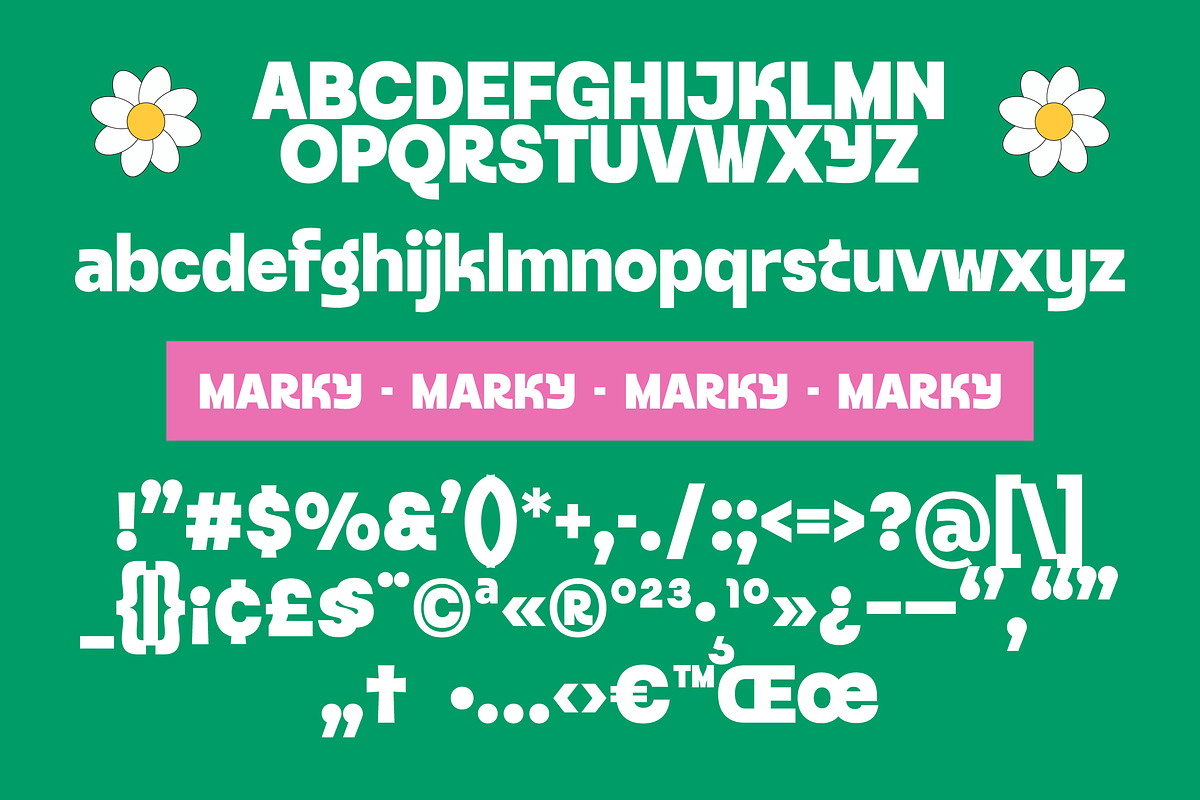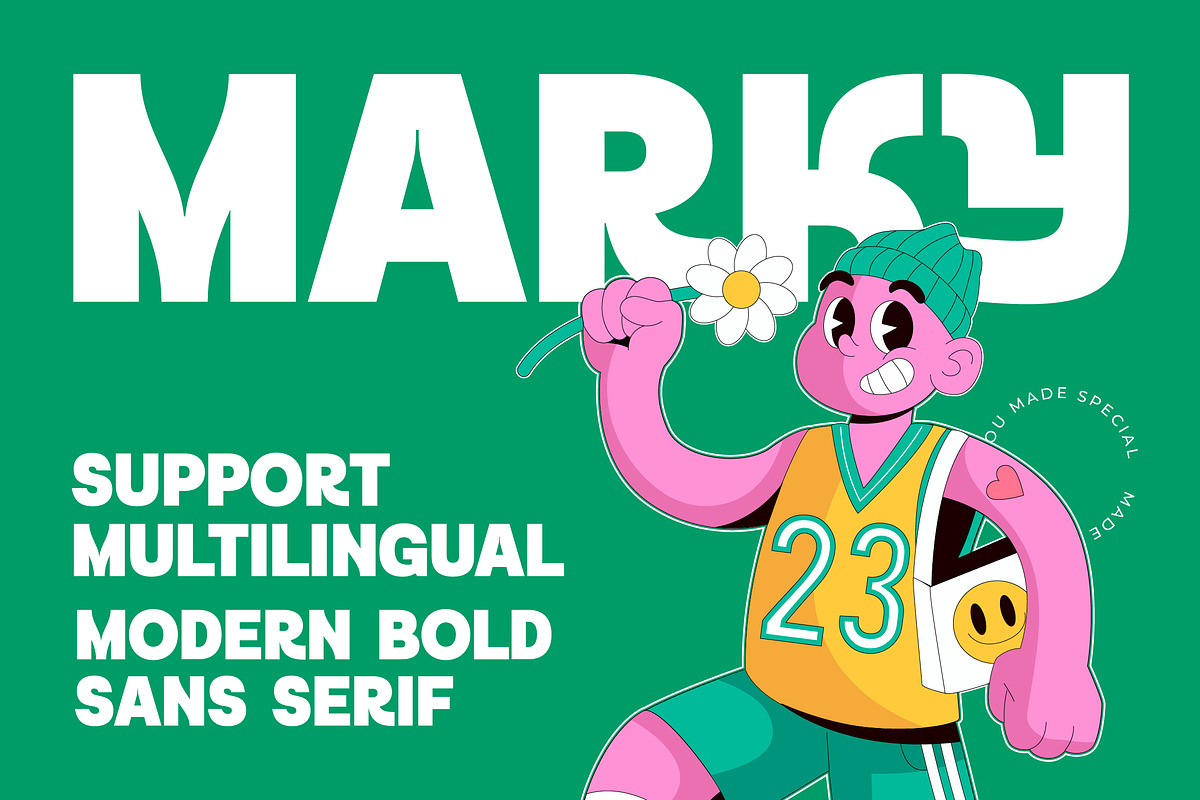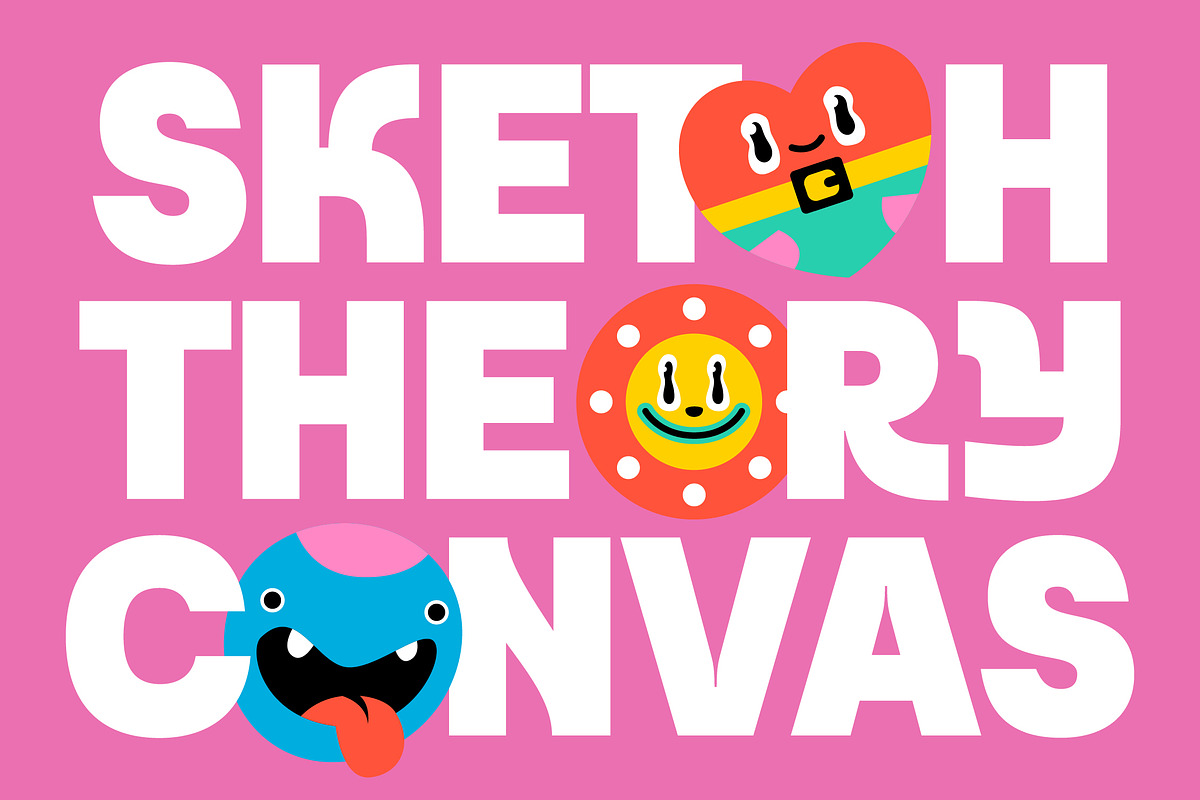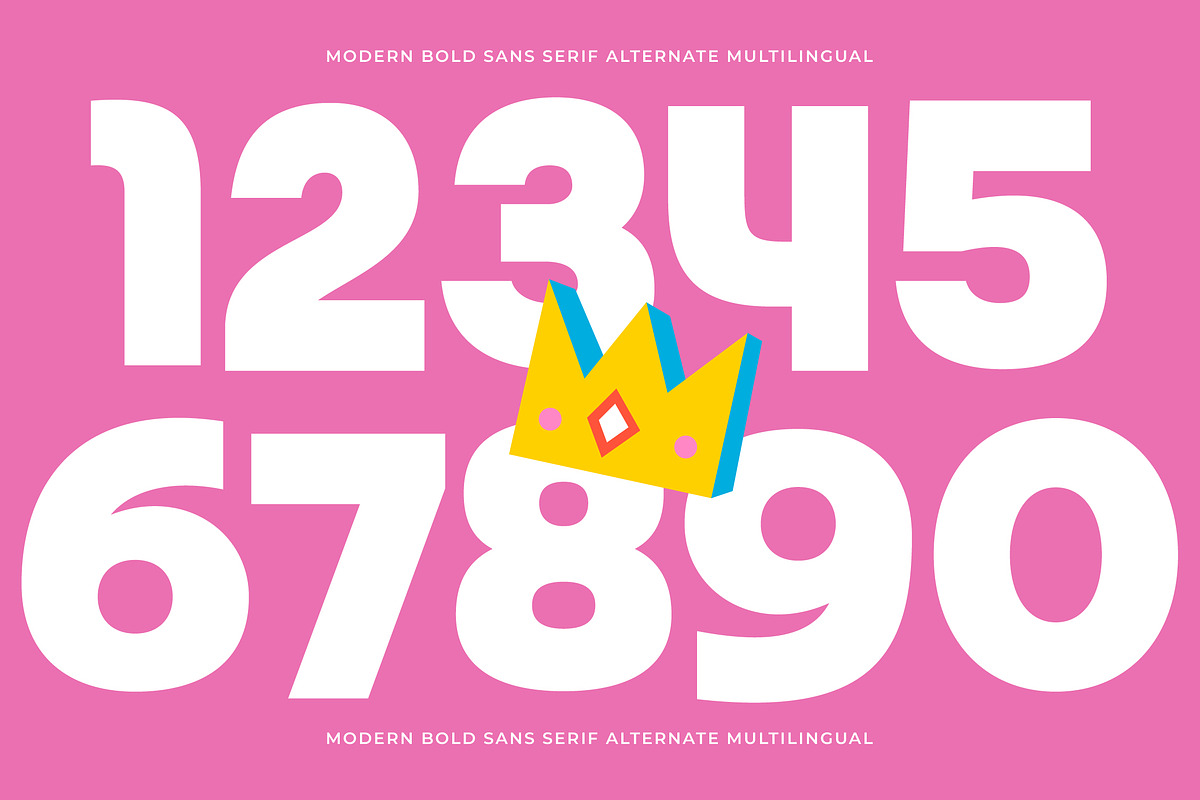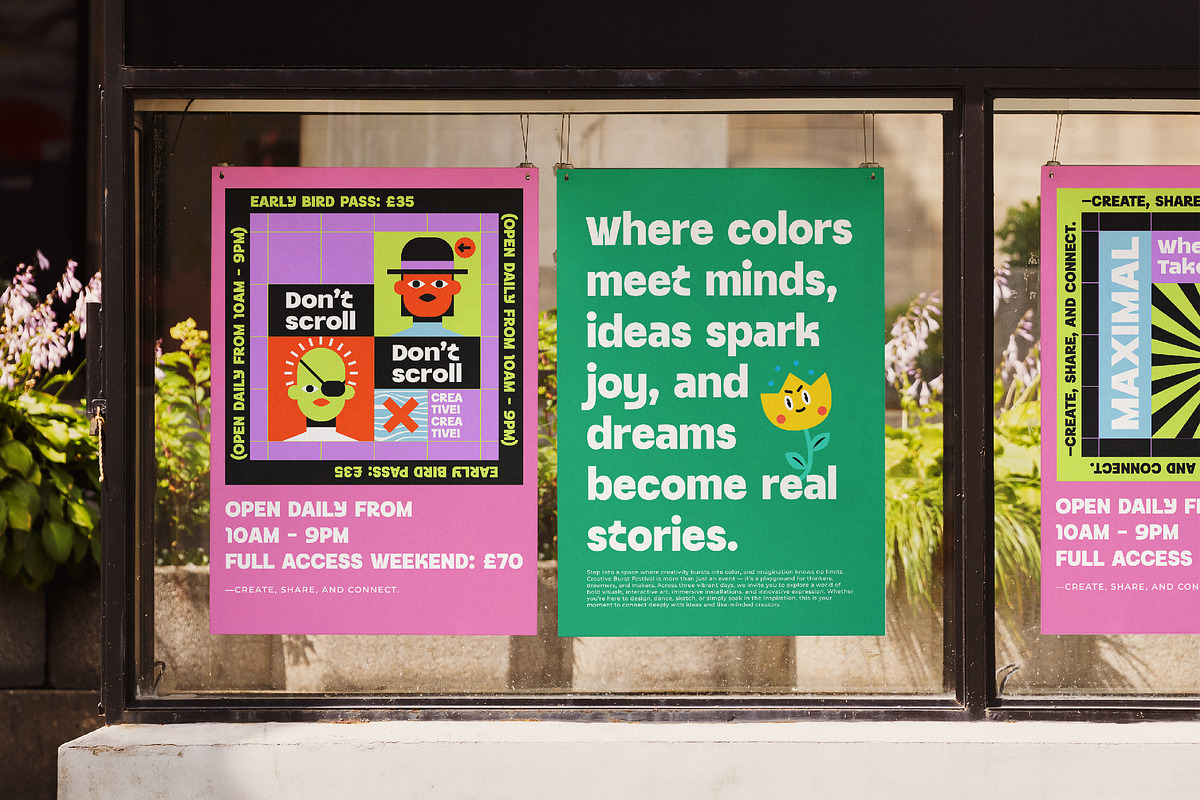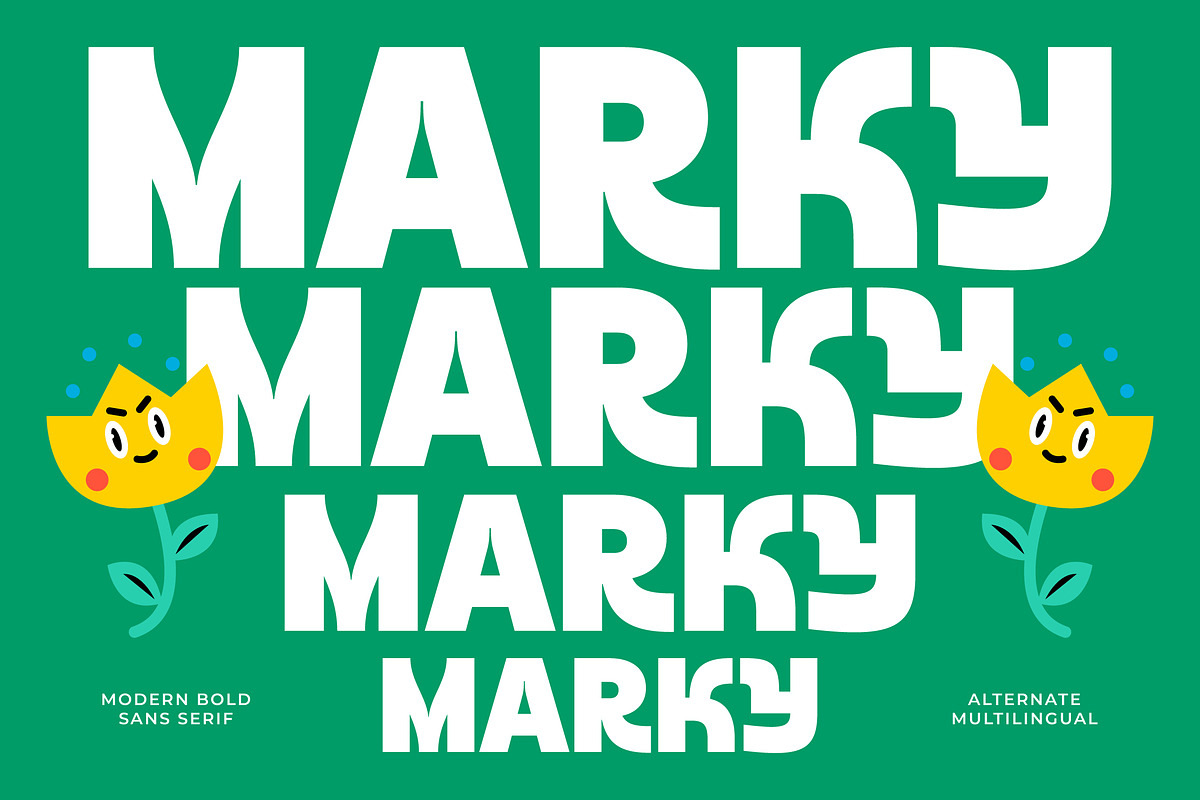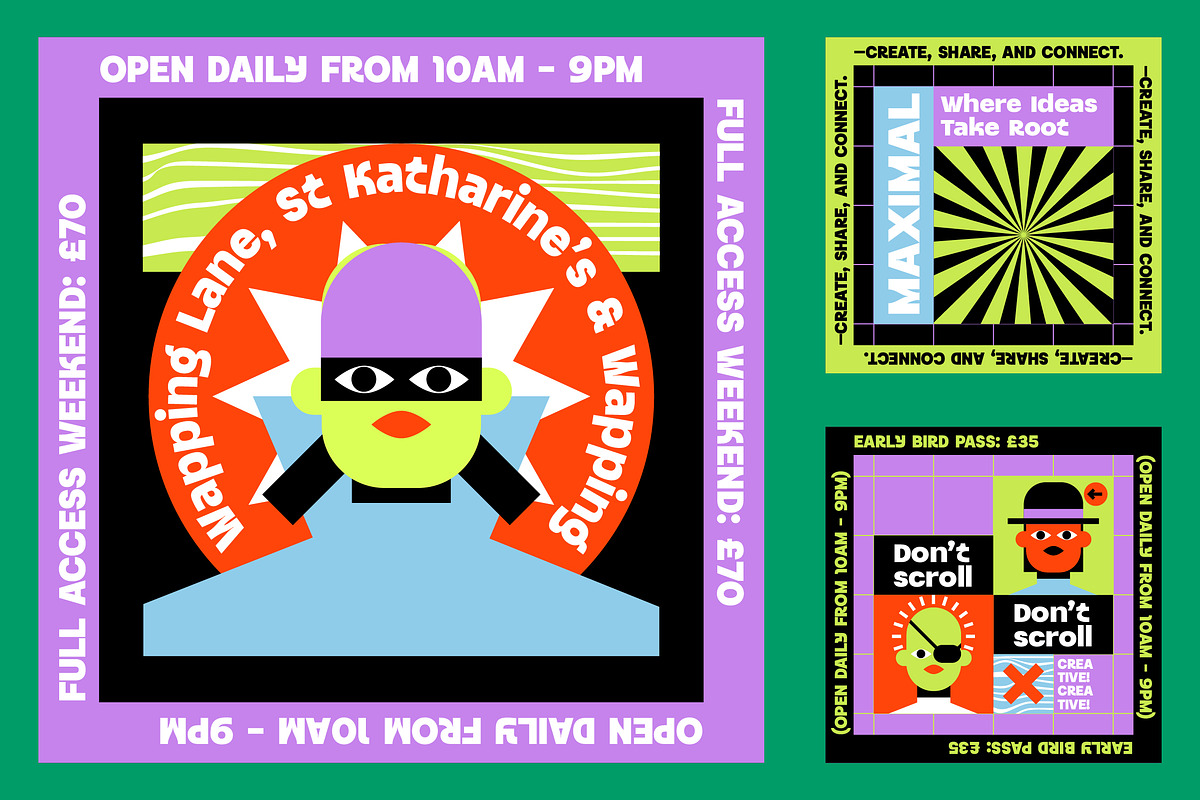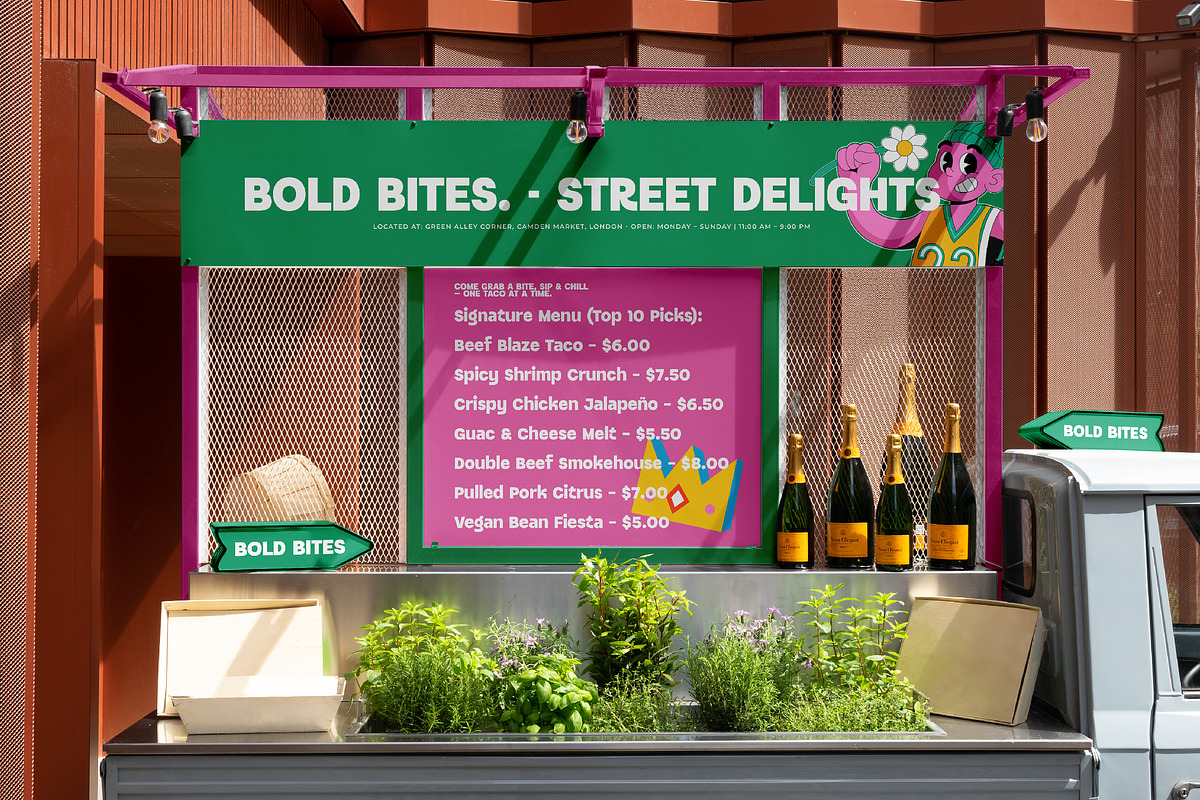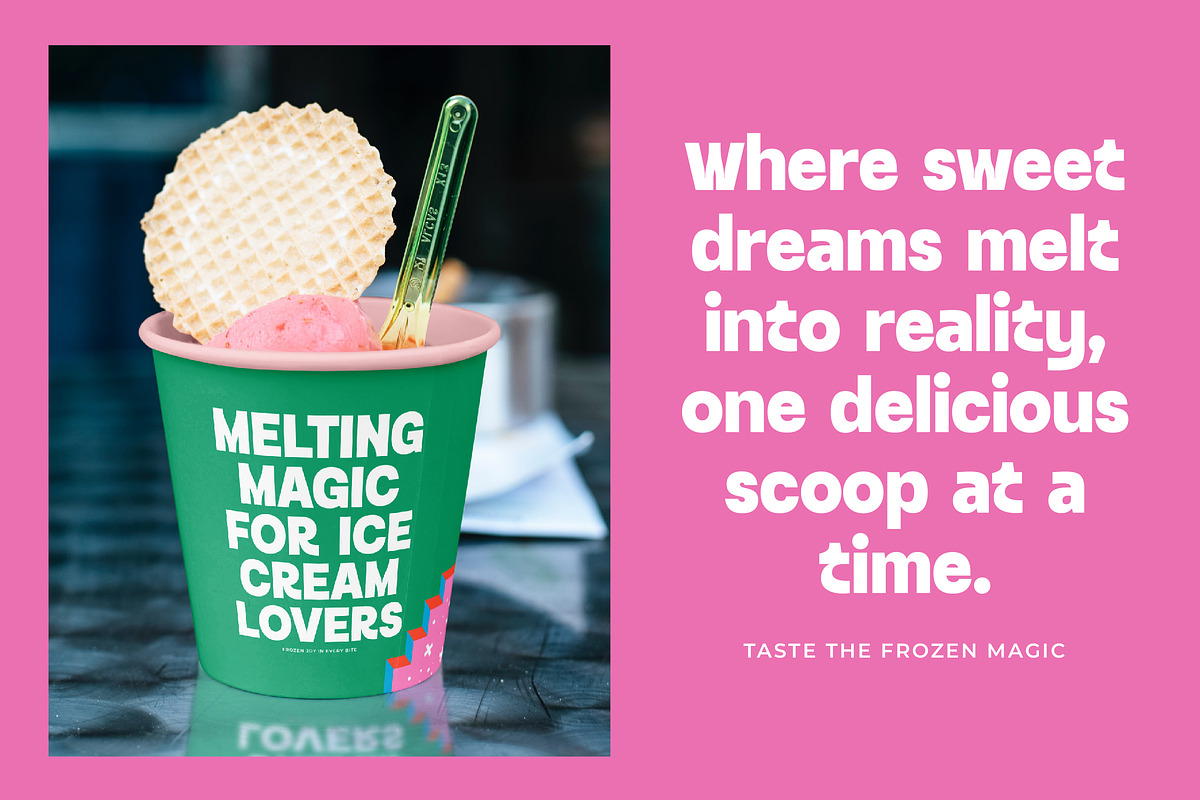
Marky Modern Bold Sans Serif Font
Marky Modern Sans Serif font is a unique, modern luxury font with a luxury, elegant, aesthetic and geometric style. It is a display font perfect for branding projects, logos, social media posts, product packaging, labels, etc.